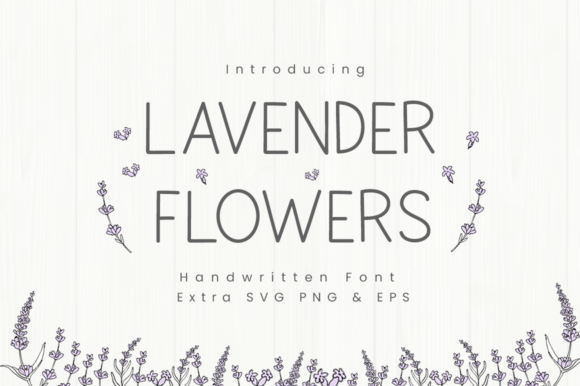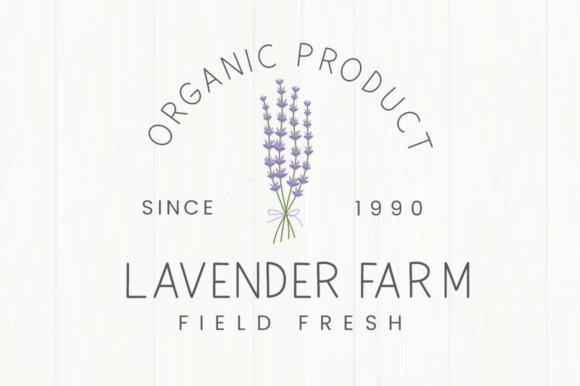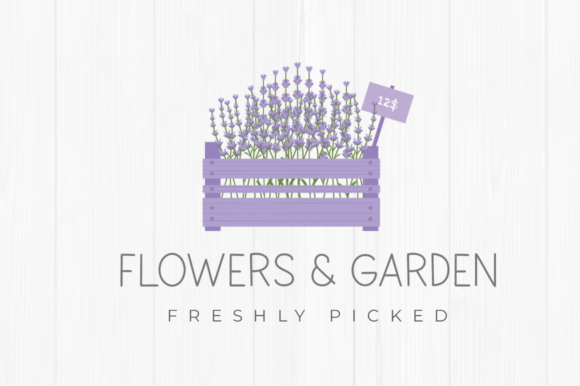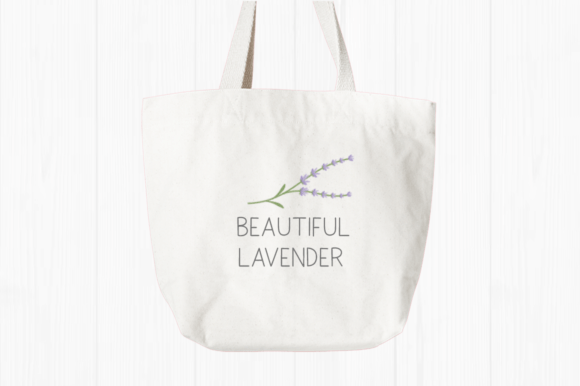
Lavender Flowers Font
About the Lavender Flowers Font
Explore the possibilities with Lavender Flowers Font, a font that offers both beauty and functionality. Lavender Flowers is a minimalist handwritten sans serif font. This font can be easily adapted to a range of business card designs, logos, signs, crafts, Invitation wedding, t-shirts, and many others. The addition of vector lavender flowers will make the design stand out more. Add this lavender flowers font to your creative design
Lavender Flowers is ideally suited for headlines, short text blocks on invitations or packaging, and logos where its delicate, handwritten feel adds a touch of elegance. Its minimalist nature makes it particularly effective in branding for products emphasizing natural beauty or handcrafted quality. However, its limited character set and thin strokes make it unsuitable for large blocks of body text or UI elements requiring high legibility.
The font’s core personality is soft and friendly, with a touch of romanticism. To complement this, pairing it with a clean sans-serif like Lato for body text or a slightly more geometric sans-serif like Montserrat for supporting elements provides a balanced contrast. For a more sophisticated feel, consider pairing it with a classic serif font such as Garamond.
Avoid using Lavender Flowers for projects requiring strong visual impact or high readability in small sizes. The inclusion of vector lavender flowers is a strong asset, best used sparingly to maintain visual balance and avoid overwhelming the design.
Lavender Flowers Font Usage Examples
Lavender Flowers Font Example